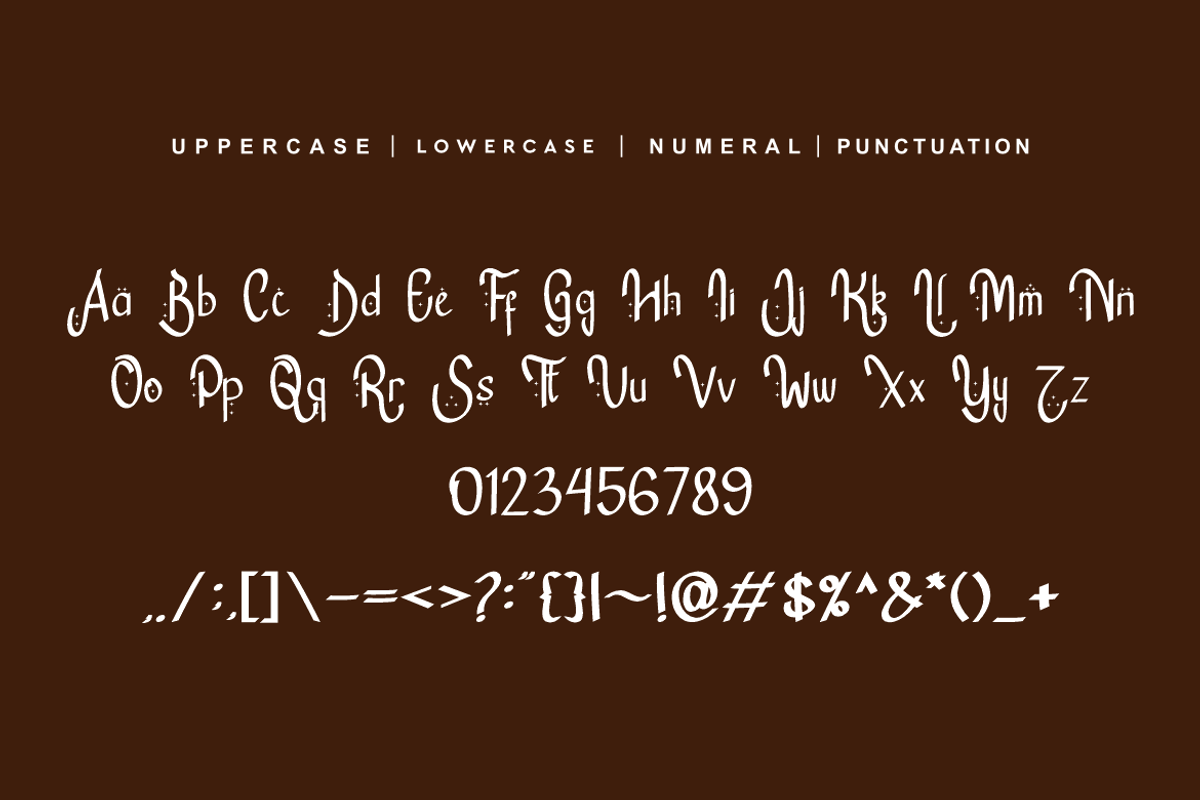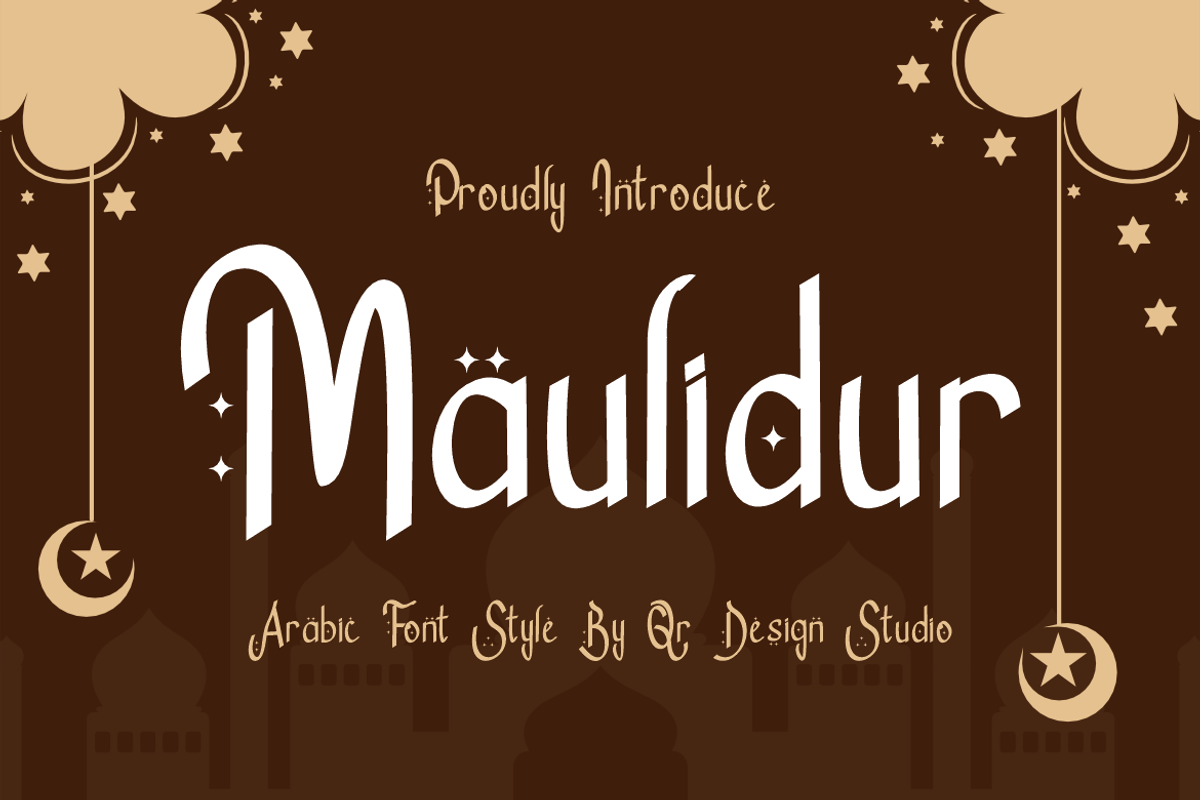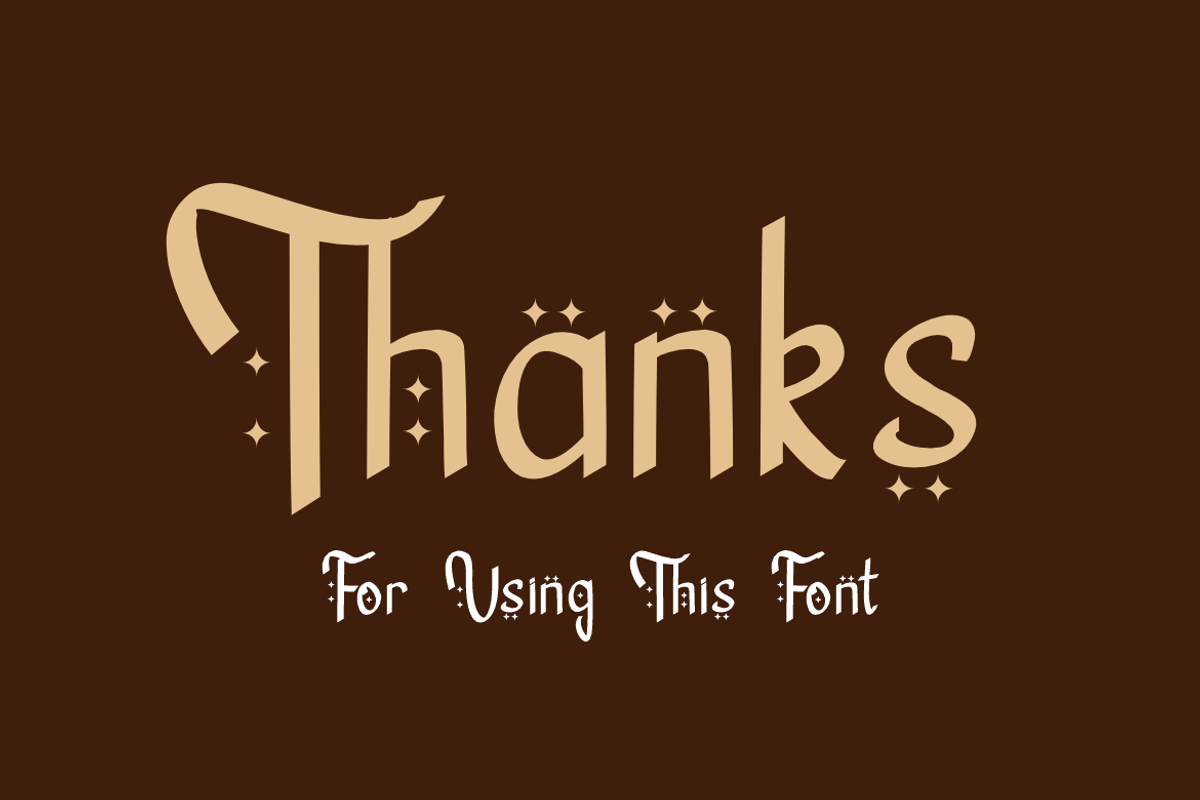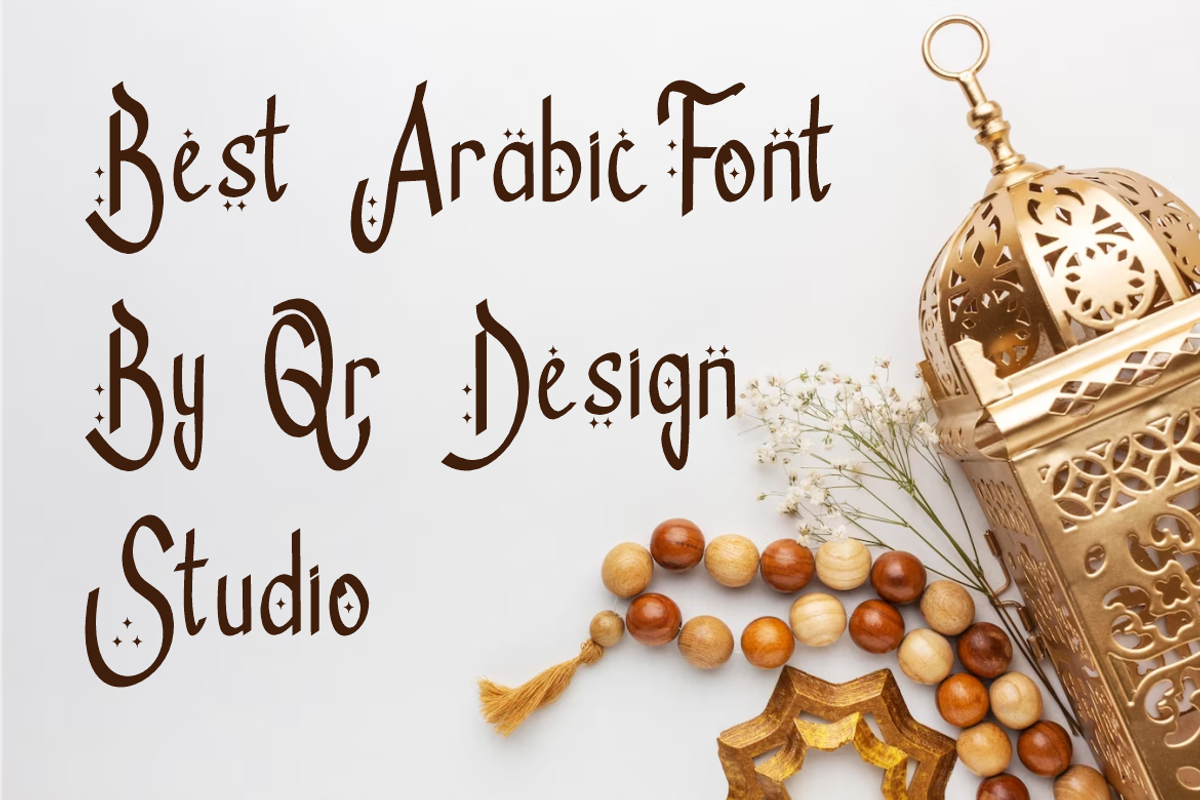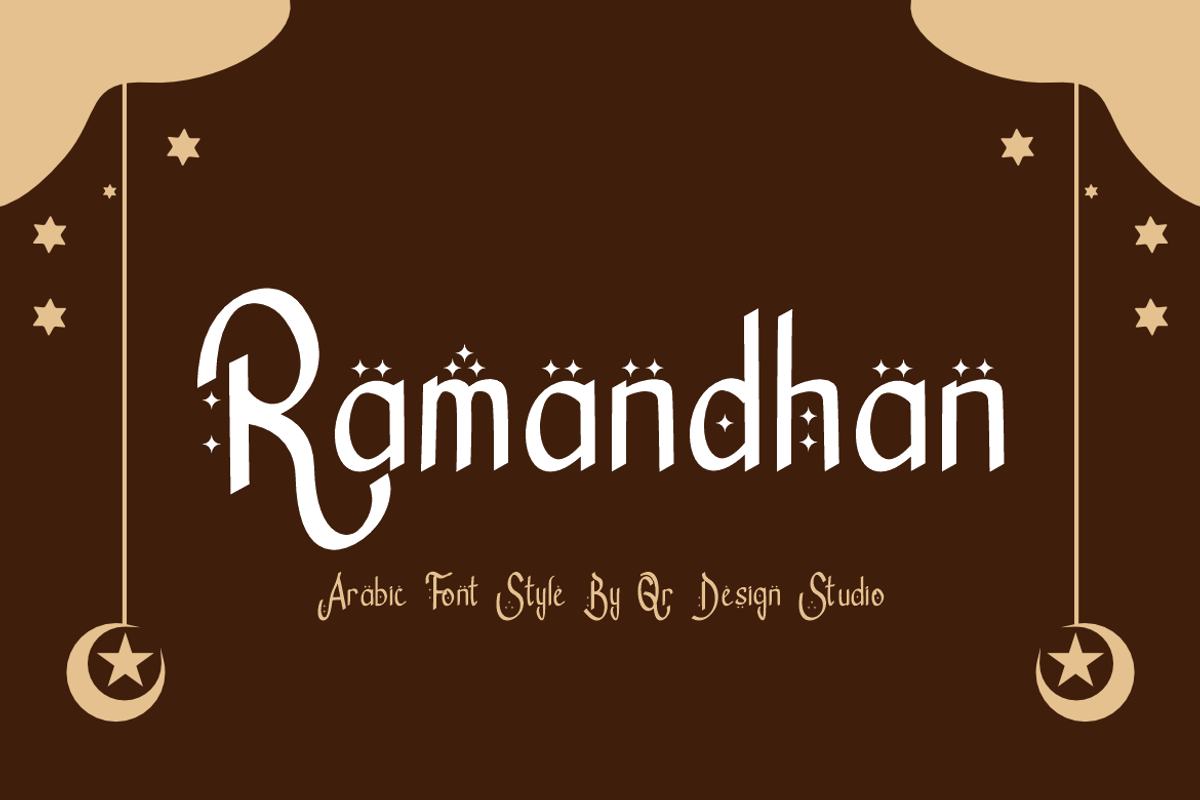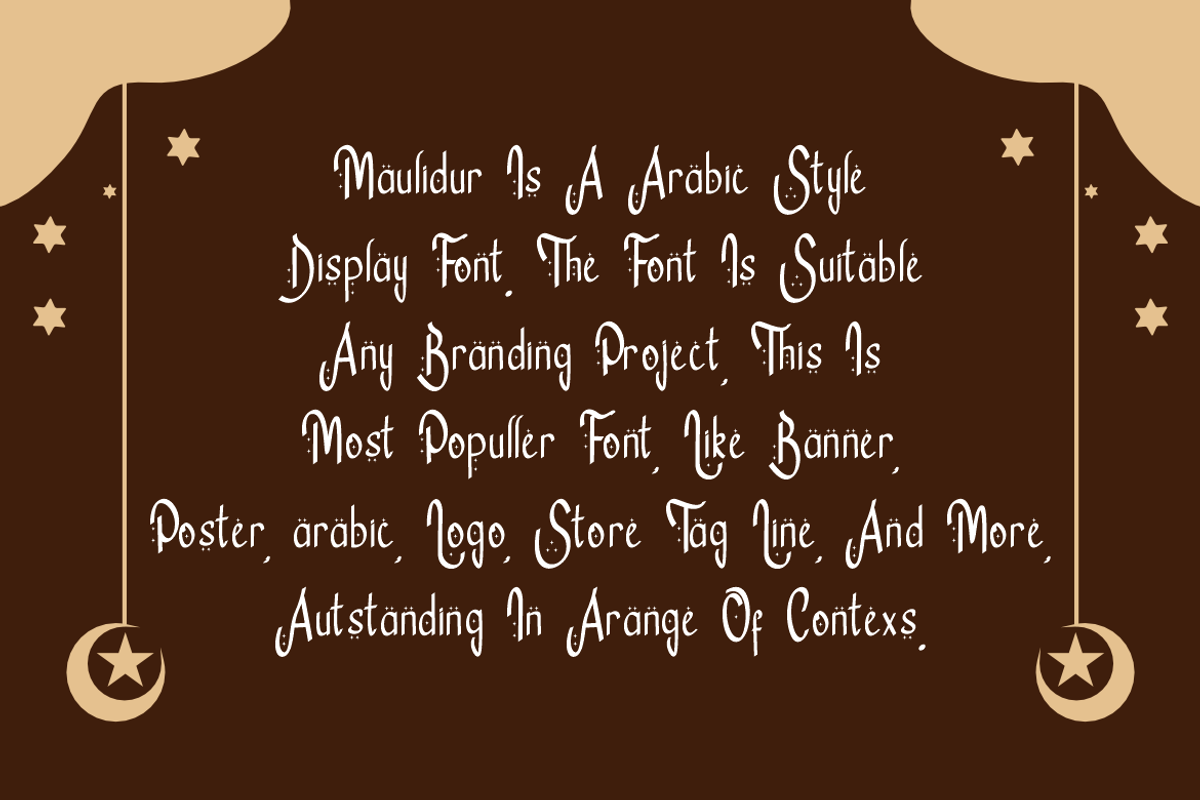
Maulidur - Arabic Font
Maulidur - Arabic Font is a bold and authentic display font. The font is suitable for any branding project like poster, islamic, ramadhan, logo, and many more. Outstanding in a wide range of contexts.